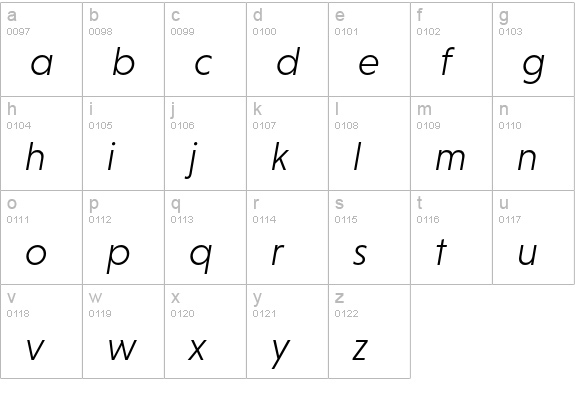
Niveau Grotesk Light Italic is a refined, elegant, italic variant in the Niveau typeface family \xE2\x80\x94 well suited to elegant body text, refined sub-headings, and luxury branding.
Niveau Grotesk Light Italic is a sleek and elegant typeface that exudes sophistication and modernity. With its subtle slant and clean lines, this font is perfect for adding a touch of style to any design project. The light weight of the font gives it a delicate and airy appearance, making it ideal for conveying a sense of lightness and grace. What makes Niveau Grotesk Light Italic even more appealing is that it is available for free download at FontsMarket.com. This means that you can easily access and use this beautiful font in your projects without any cost. Whether you are designing a website, creating a branding package, or working on a print publication, Niveau Grotesk Light Italic will add a touch of sophistication and elegance to your work. Download it today and elevate your designs with this stunning typeface.